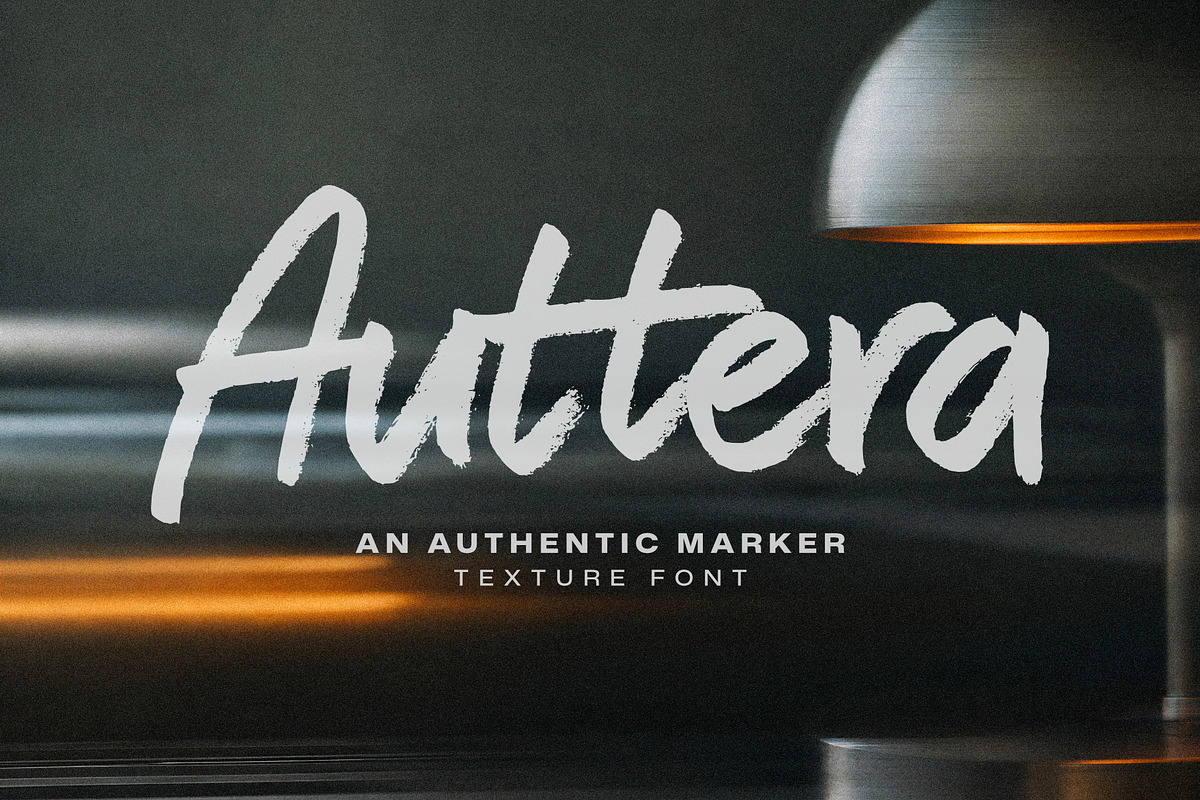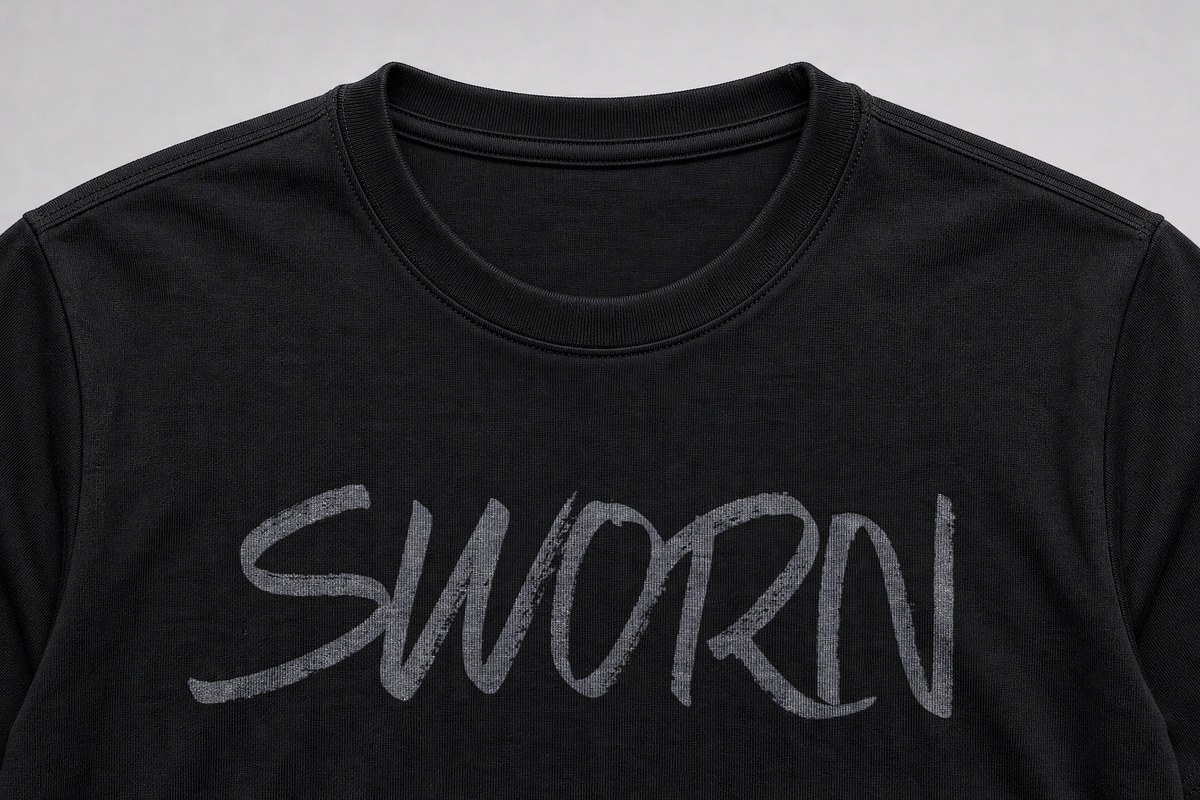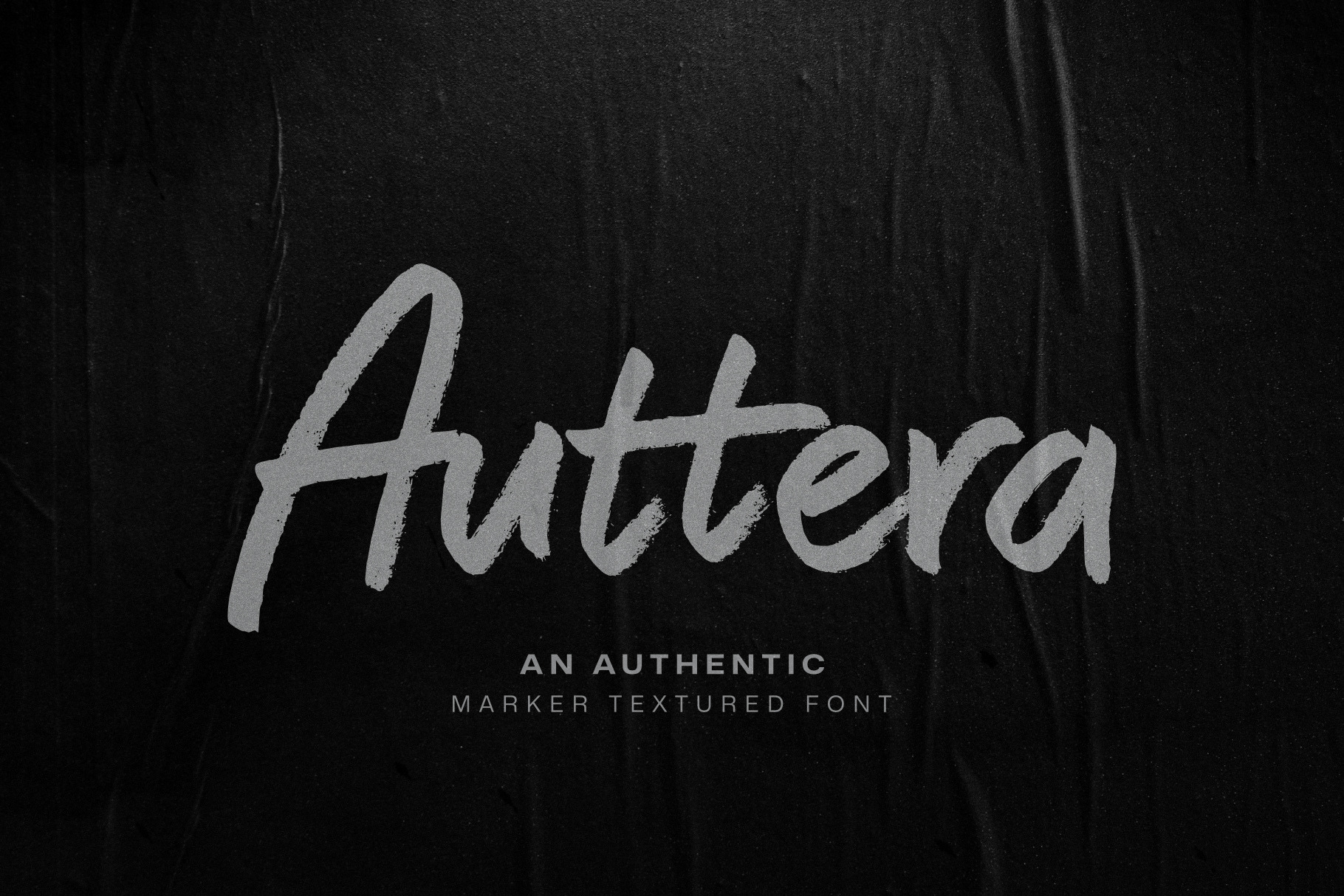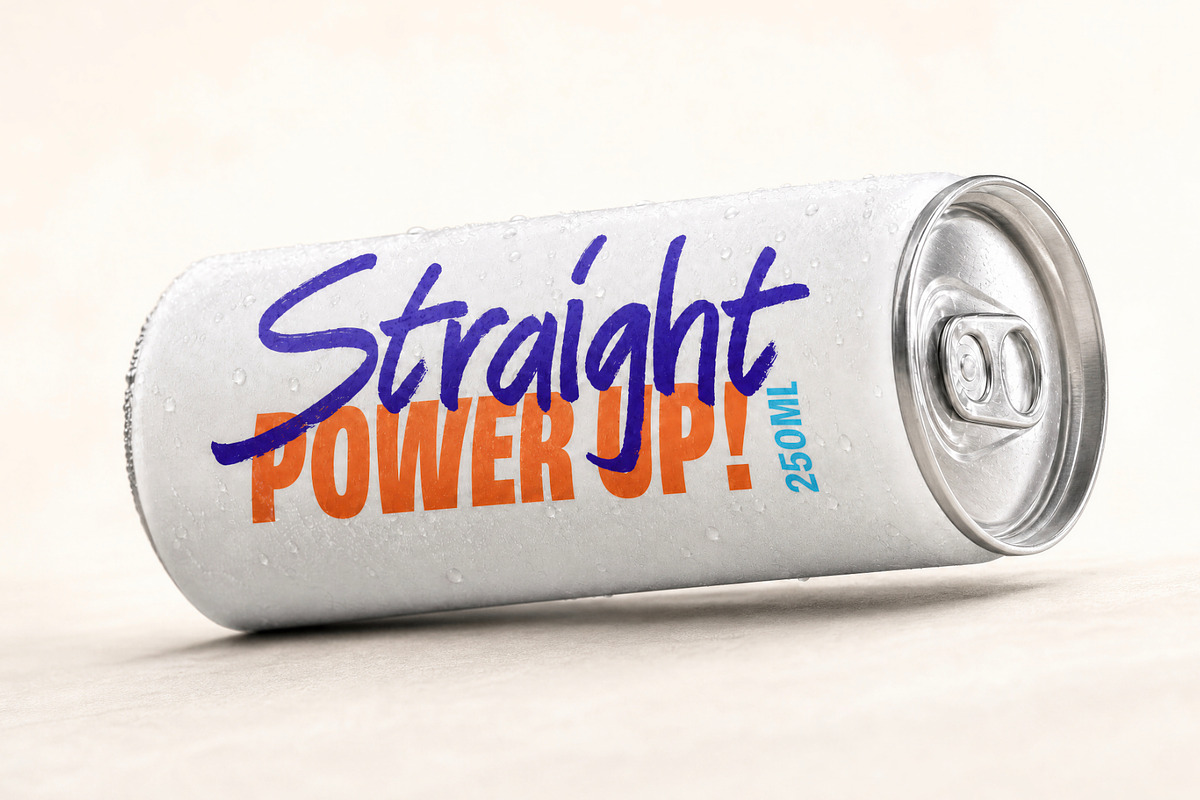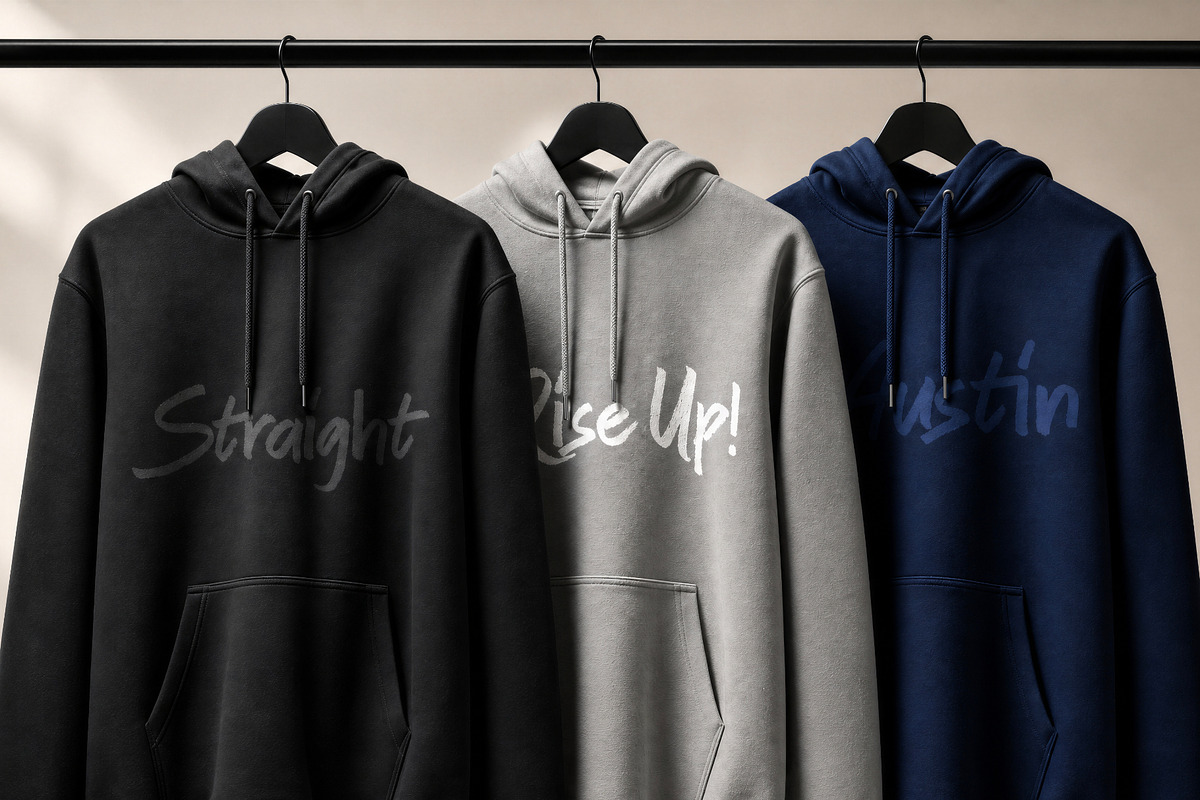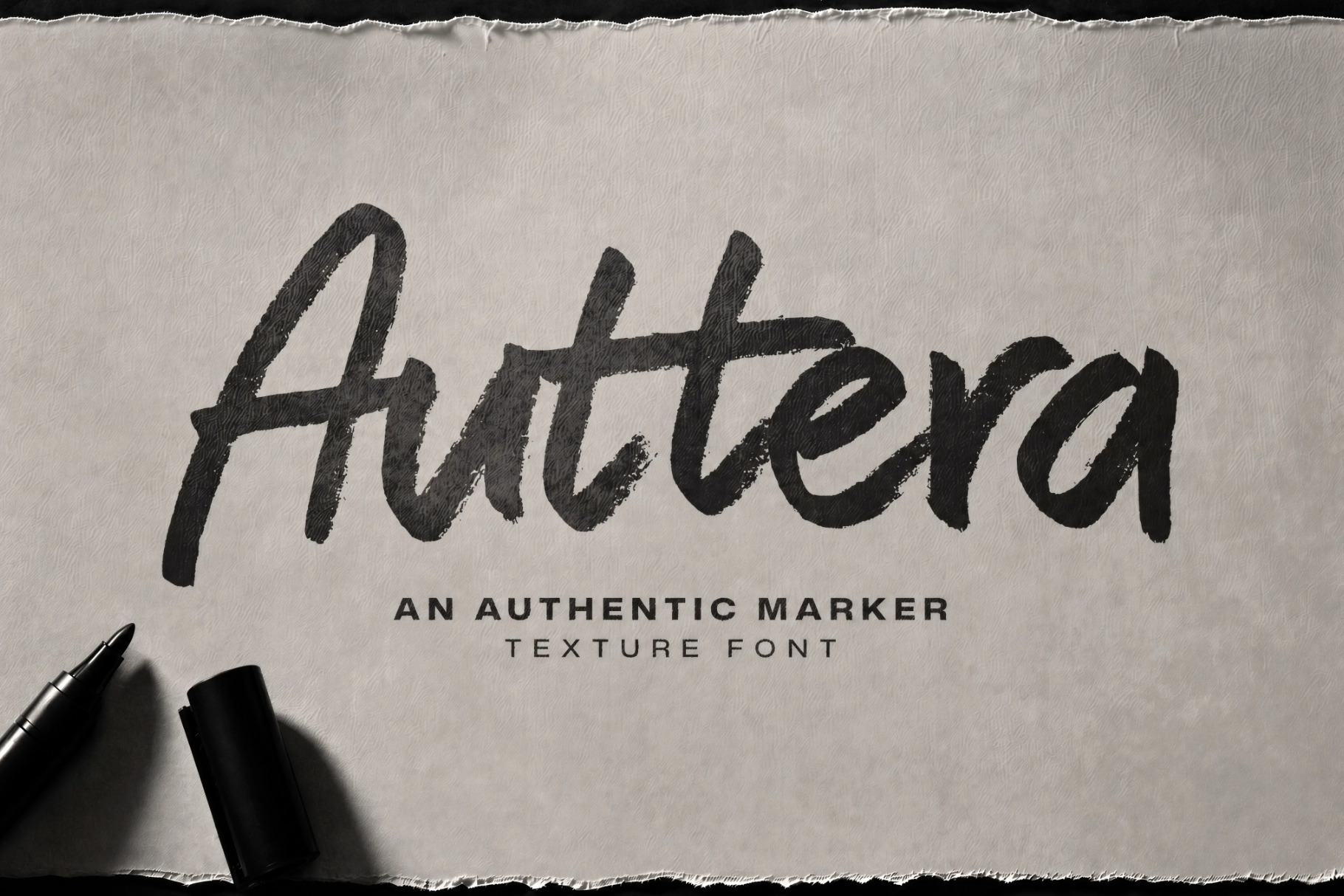
Auttera: Hand-Drawn Marker Font
Authentic Hand-Drawn Marker Font
Auttera isn't trying to look handmade.It is.Built from real marker lettering, its loose strokes, imperfect edges, and natural rhythm keep the mess, movement, and personality of the original hand.
Made for logos, lifestyle branding, packaging, apparel, posters, social campaigns, editorial work, and creative identities, Auttera gives your words a human edge without making them feel forced.
Keep it loose. Keep it human.